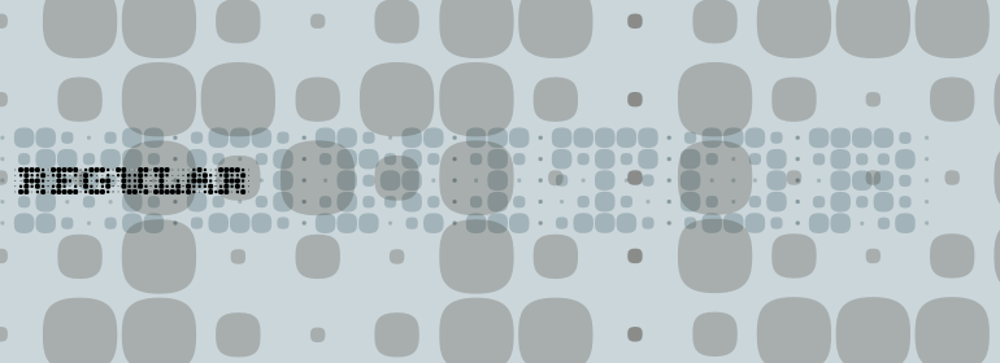
Monitor Font Family was designed by Rian Hughes and published by Device. Monitor contains 1 styles and family package options. Monitor is an early experiment in TV-wall pixeldom, and has the unique property of becoming easier to read the further away one gets.